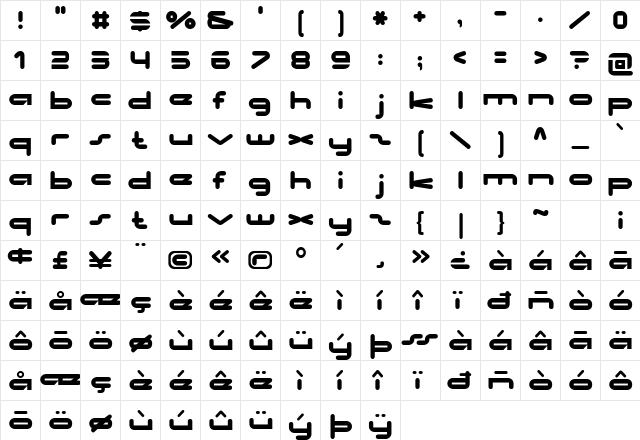
No Clocks Regular
Design Context for No Clocks Typeface
No Clocks offers clean, dependable letterforms without strong stylistic allegiance, making it a practical choice for designers who need flexibility.